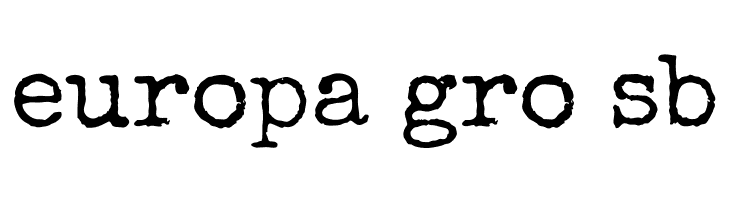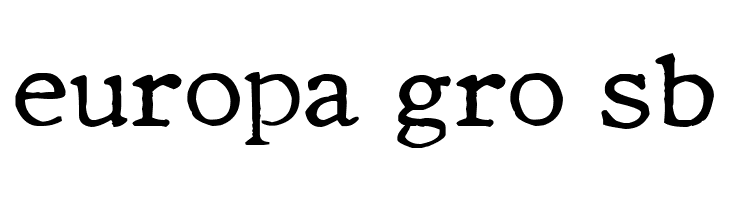
( Fonts by Jeff Levine. FREEWARE )
( - polskaonline.org )
A vintage, distressed font with bold strokes and a hand-crafted appearance.
( Fonts by Kevin Christopher - www.kcfonts.com )
A bold, distressed font with a vintage, textured appearance.
( Fonts by Astigmatic One Eye Typographic Institute - Brian J. Bonislawsky - astigmatic.com )
A vintage typewriter-style font with a monospaced, slab serif design and a slightly distressed look.
( Fonts by site.xavier.edu/polt/typewriters/ - Richard Polt )
A rugged, distressed font with a vintage, typewriter-like appearance.
( Fonts by site.xavier.edu/polt/typewriters/ - Richard Polt )
A vintage typewriter-style font with a bold, distressed appearance.
( Fonts by David Kerkhoff - www.hanodedphotography.com )
A medieval-inspired font with calligraphic, decorative elements.
( Fonts by Mans Greback - www.mawns.com )
A rustic, handcrafted font with a woodcut print style.